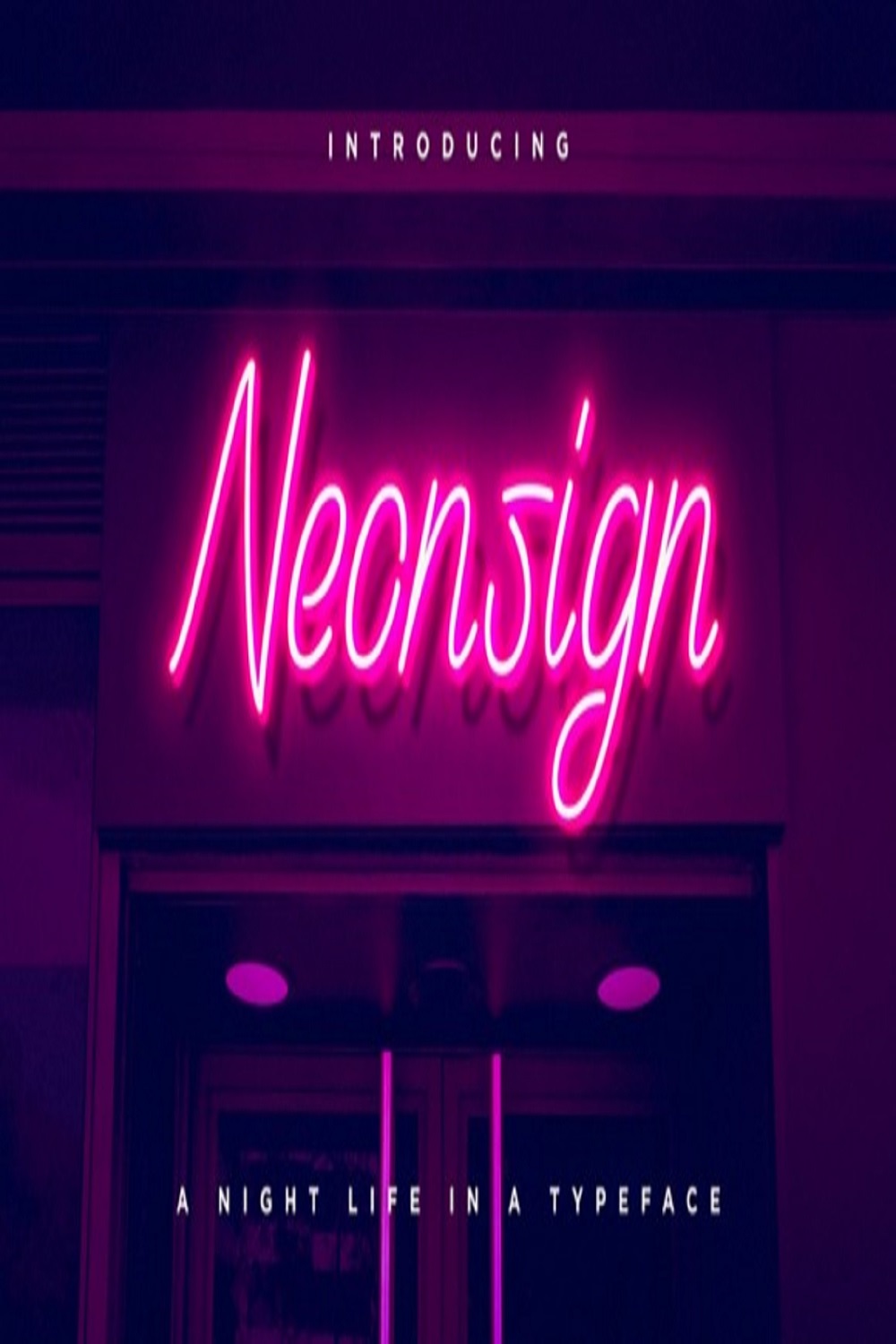
Neonsign feels incredibly elegant and flowing. It looks stunning on wedding invitations, thank you cards, quotes, greeting cards, logos, business cards and every other design which needs a handwritten touch.